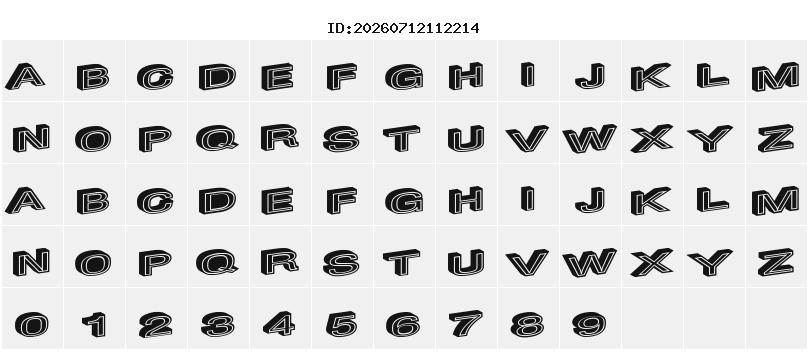
MakeImpact Preview
• Font Name: MakeImpact
• Designer: max infeld
• Description: Made in Ojai,california
About MakeImpact.ttf
MakeImpact.ttf is a modern, elegant sans-serif font designed for ultimate readability and visual harmony. Perfect for branding, headlines, web design, and print materials.